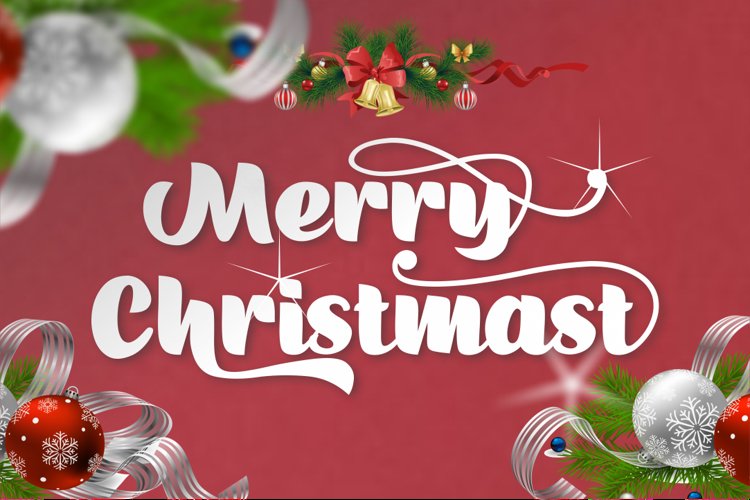
Ruang Jenuh
The new product "Ruang Jenuh" is here, now you can improve the quality of your branding design. with this font you can apply for t-shirt designs, web logos, program titles and more.